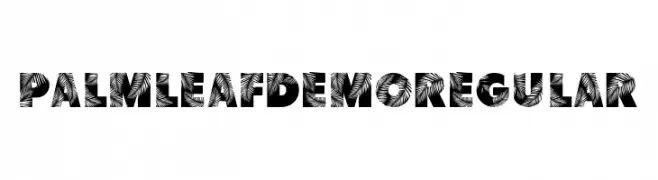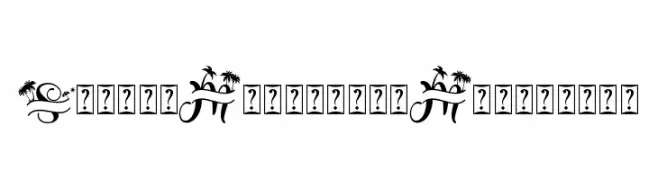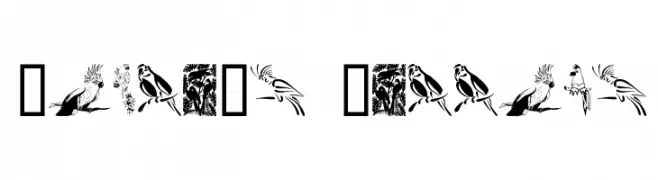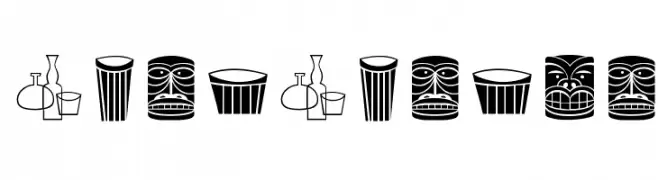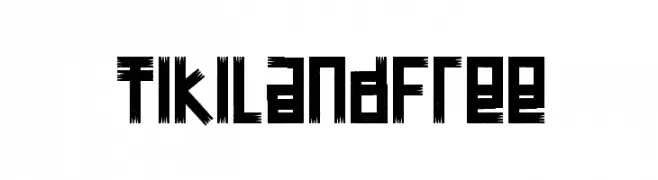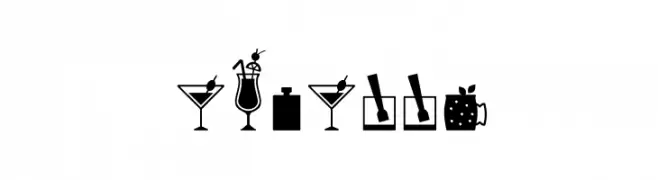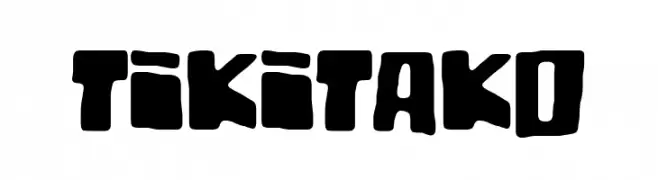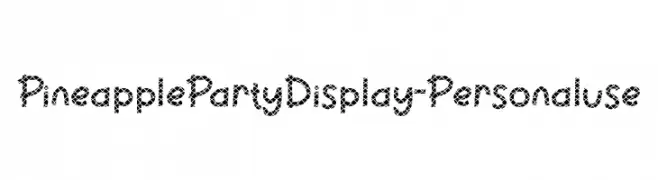
A playful, tropical-themed font with palm tree accents and bold, irregular characters.
A bold, decorative font with intricate palm leaf patterns in each character.
A decorative font with summer-themed elements like palm trees and waves.
A playful, hand-drawn font with a bold, tiki-inspired style.
A decorative set of parrot illustrations replacing traditional font characters.
A playful, retro icon set with a tiki-inspired, mid-century modern aesthetic.
A bold, textured font with a tribal, hand-carved aesthetic.
A bold, modern collection of drink-themed icons in black silhouette style.
A bold, tiki-inspired font with a playful, hand-carved look.
A playful, decorative font with a pineapple texture pattern.